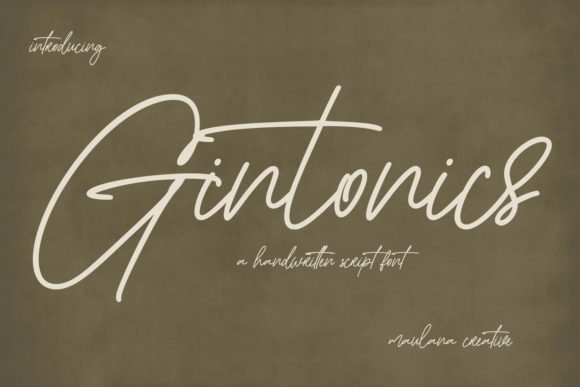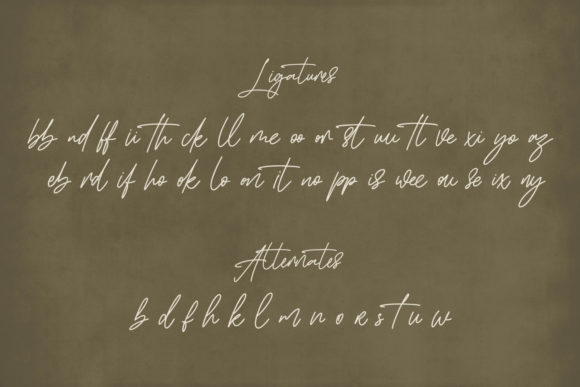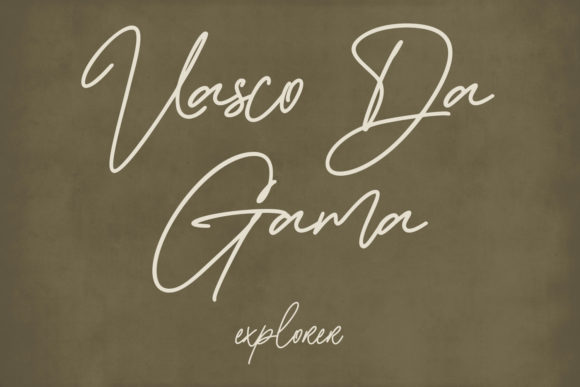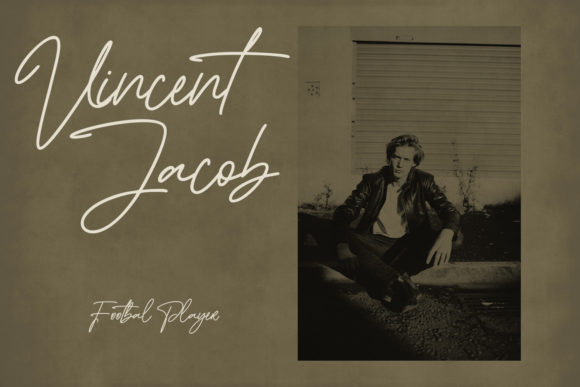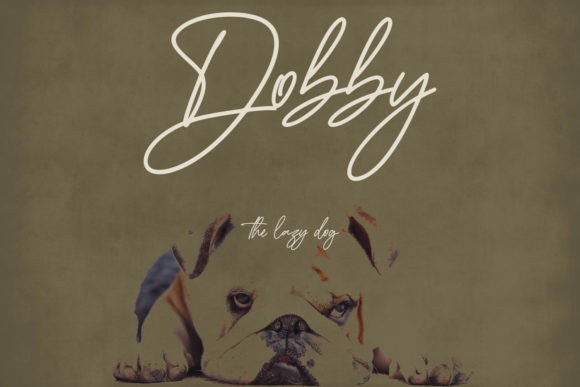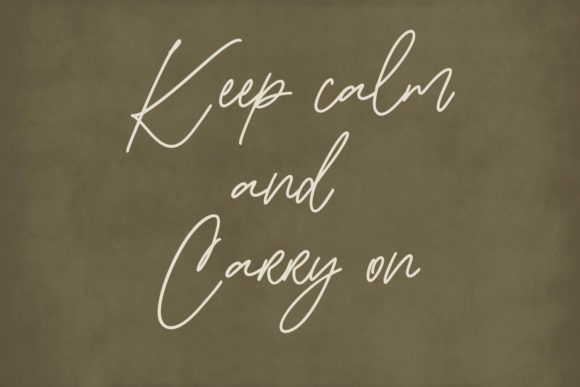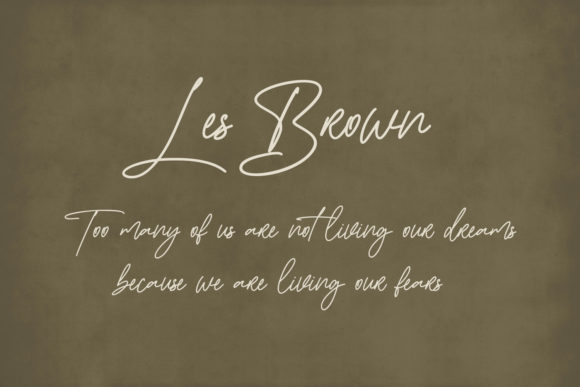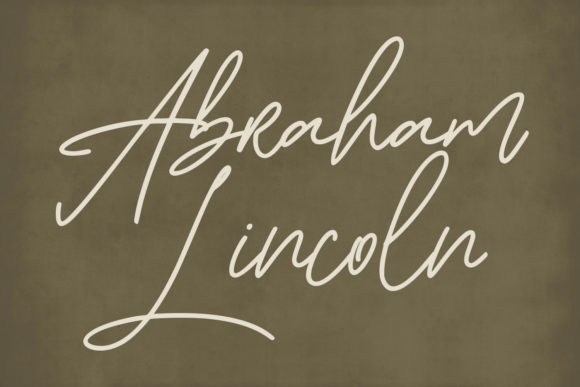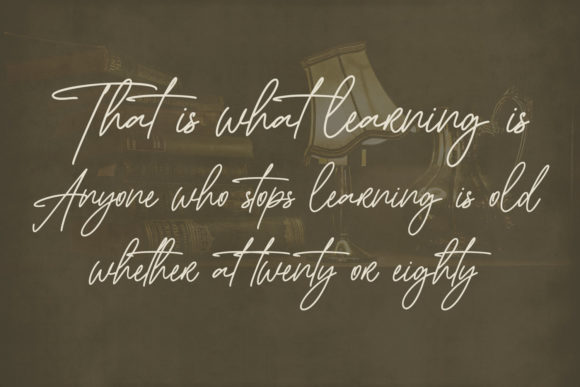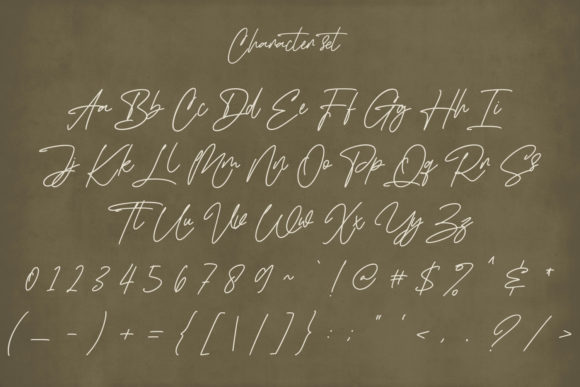
Gintonics Font
About Gintonics Font
Gintonics is a font that embodies fashion and style, offering a trendy and sophisticated script design. With a beautiful and balanced character, this font seamlessly integrates with a broad range of design themes, making it a versatile choice for various creative projects. Gintonics stands out as a fashionable and stylish option that adds a touch of elegance to the large design pool.
The font’s fashion-forward and stylish qualities make it well-suited for a variety of design applications. Whether used in branding, advertisements, product packaging, or any project that demands a contemporary and chic aesthetic, Gintonics brings a level of sophistication that enhances the overall visual appeal.
The beautiful and balanced character of Gintonics ensures that it harmonizes well with diverse design elements, making it adaptable to different styles and themes. Its versatility makes it a valuable asset for designers seeking a font that effortlessly elevates their projects, contributing to a polished and refined overall look.
In summary, Gintonics is not just a font; it’s a fashionable and stylish script that enhances the visual allure of your designs. Its beautiful and balanced character ensures a seamless fit within the large design pool, making it a versatile and sophisticated choice for a variety of creative endeavors. With Gintonics, your projects can effortlessly achieve a trendy and chic aesthetic that resonates with contemporary design preferences.